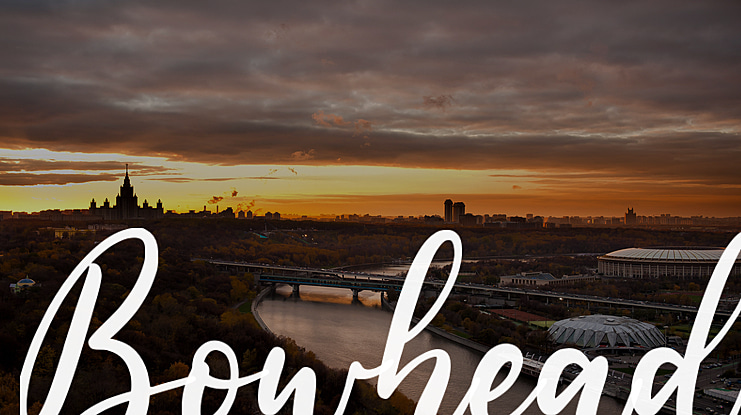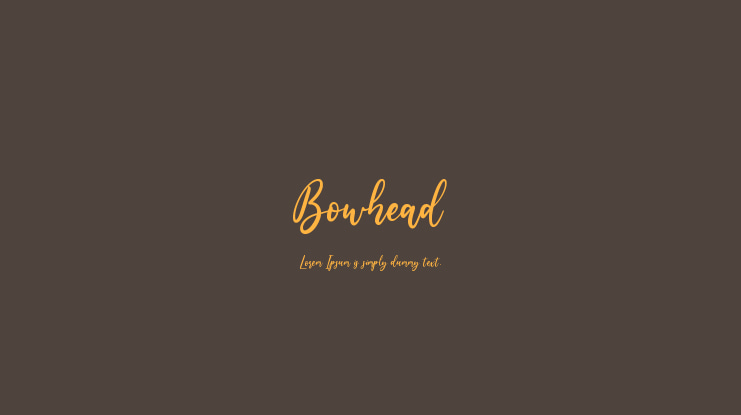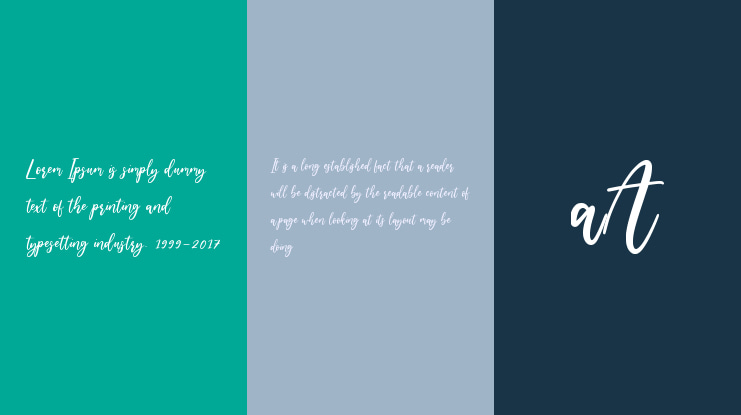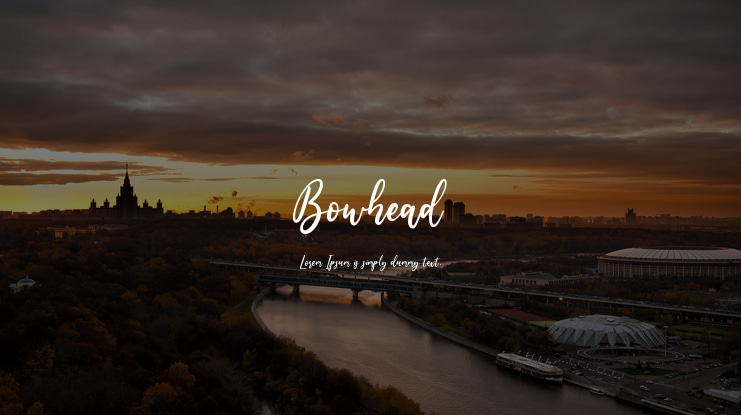
Bowhead Font
Proudly Present, Bowhead Font.
Bowhead is a Modern Calligraphy Font. This sweet font has nice smooth lines.
Bowhead is perfect for product packaging, branding project, megazine, social media, wedding, or just used to express words above the background.